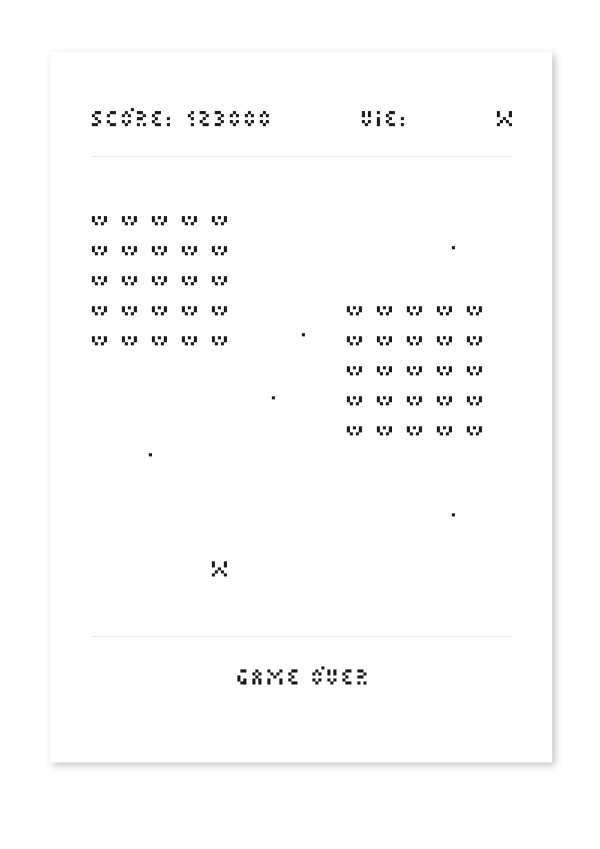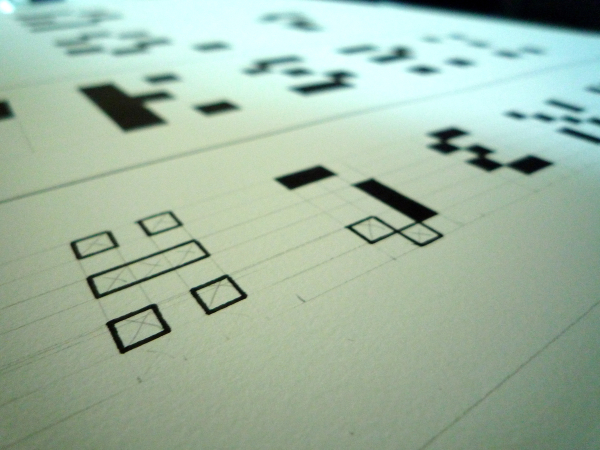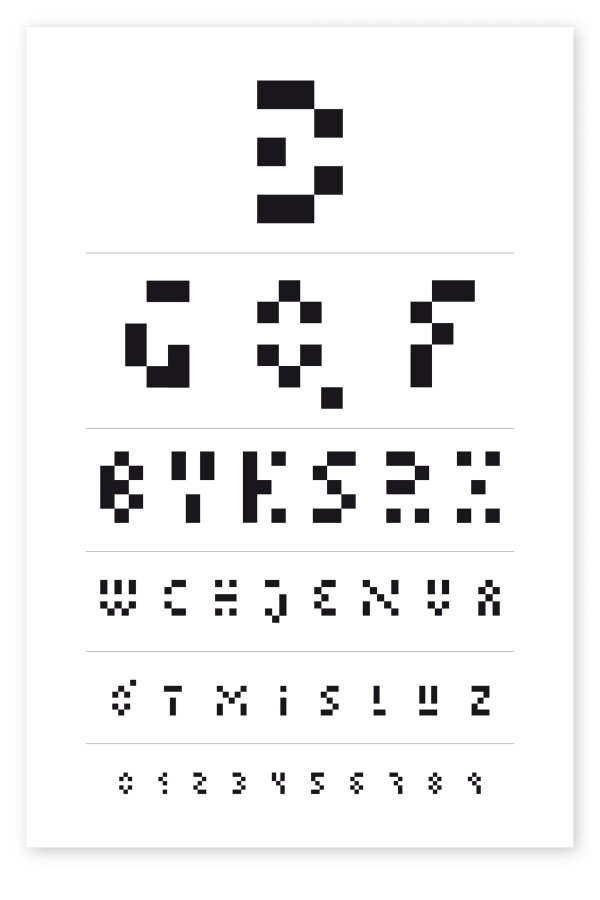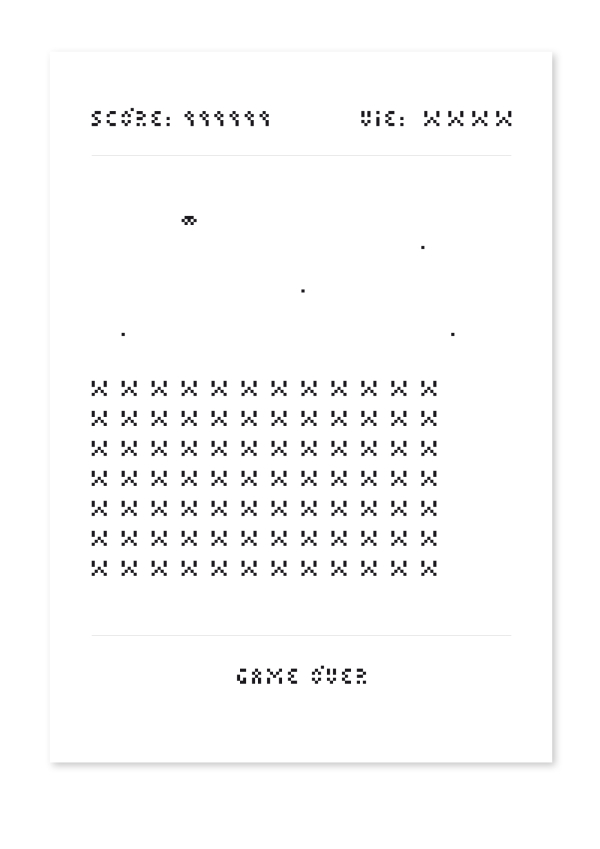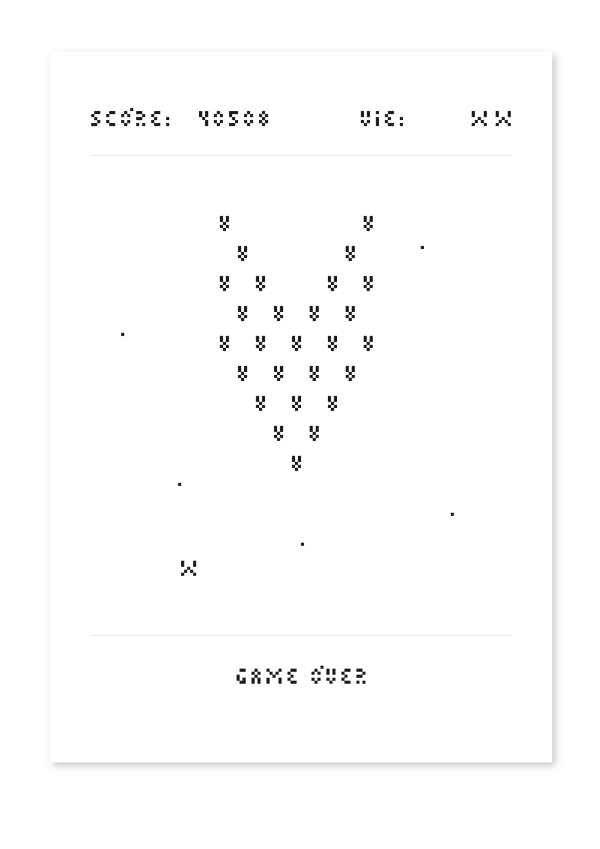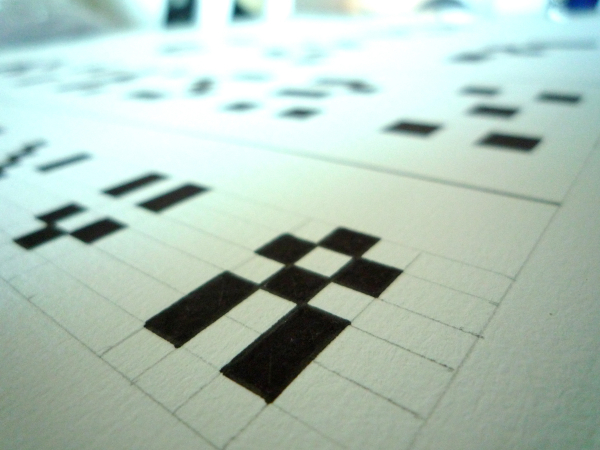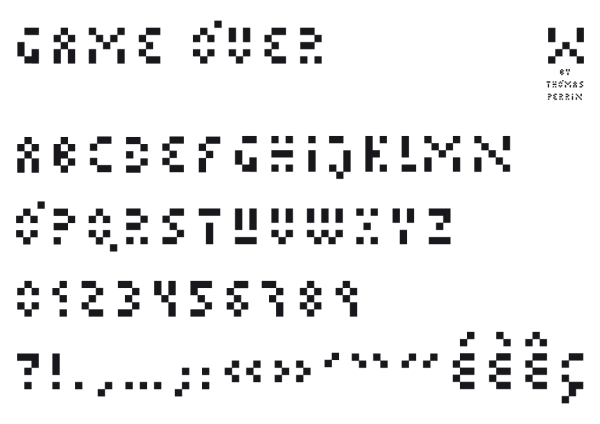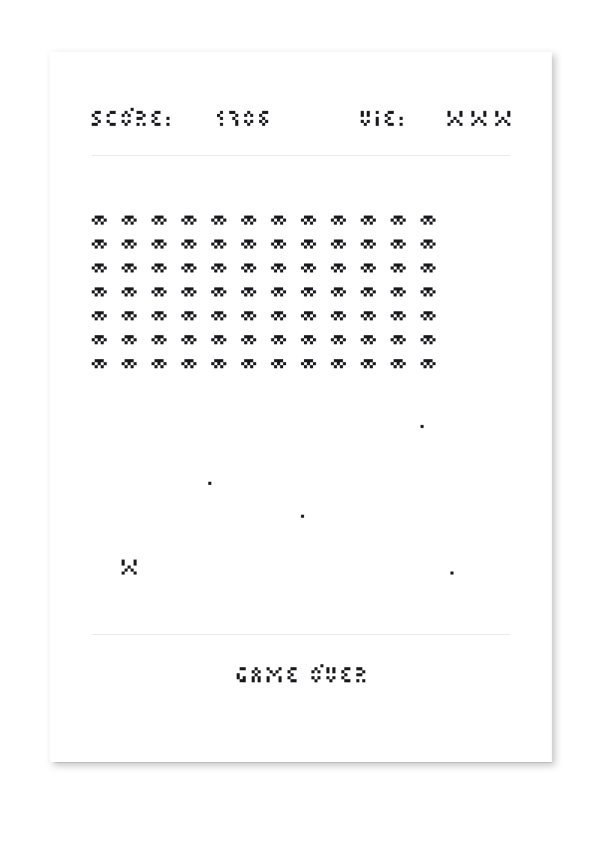
Game Over
Typographical experience around the notions of pixel, minimalism, and closure laws: Dedicated to Space Invaders!
Designer: Thomas PERRIN
Publisher: Thomas PERRIN